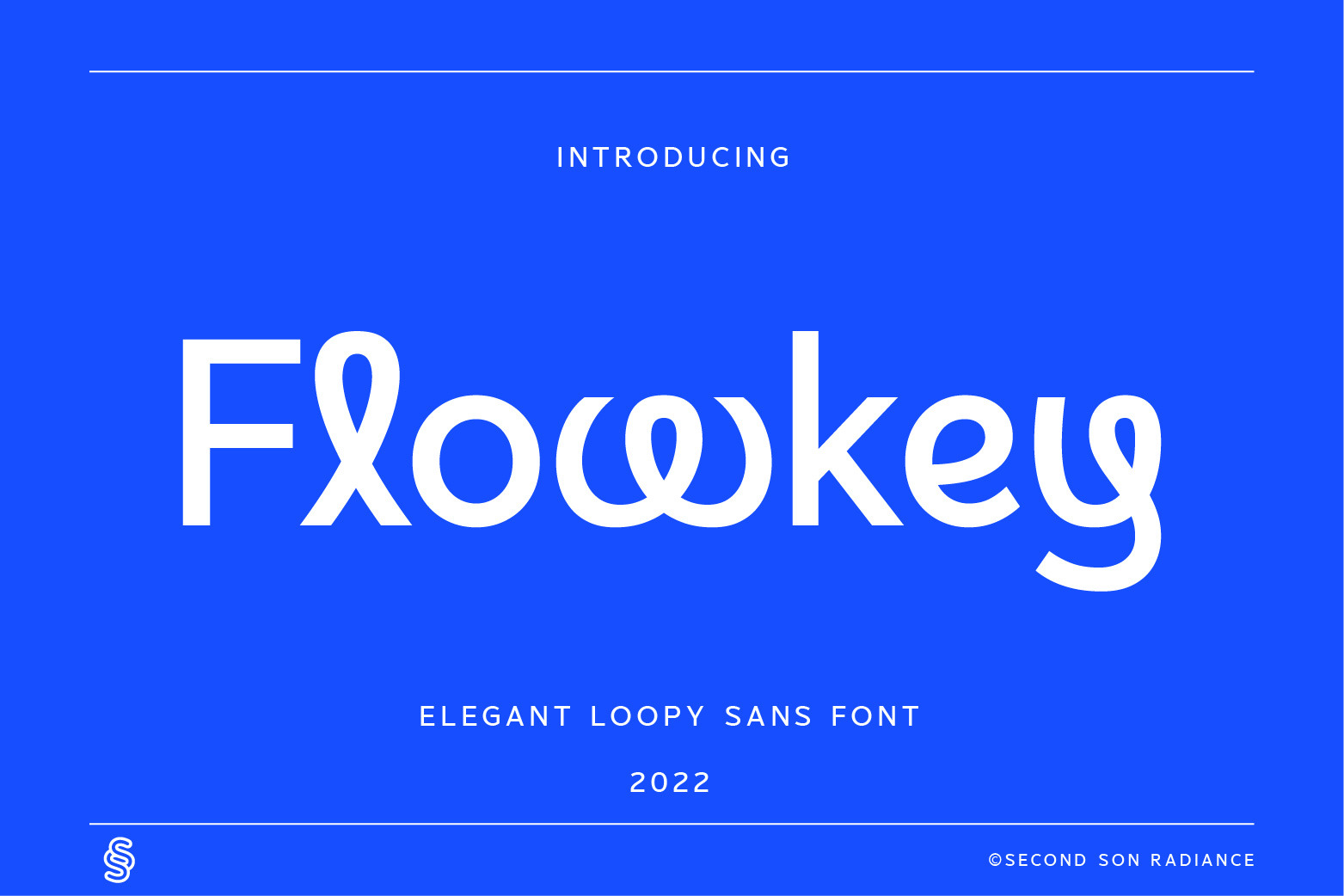
SS Flowkey - Loopy Sans Font
Flowkey - Decent Timeless Sans - Elegant Loopy Sans Font
Flowkey is a decent, timeless and elegant loopy sans font. This fancy and classy font is perfect for your design project, wedding invitation, branding business, business card, fashion event, logotype apps, book/cover title, art quotes, elegant logo, classy editorial design, etc.